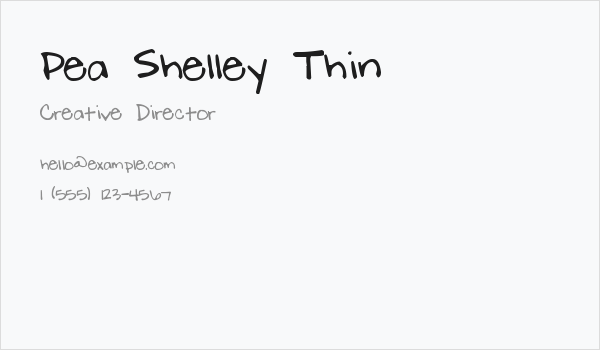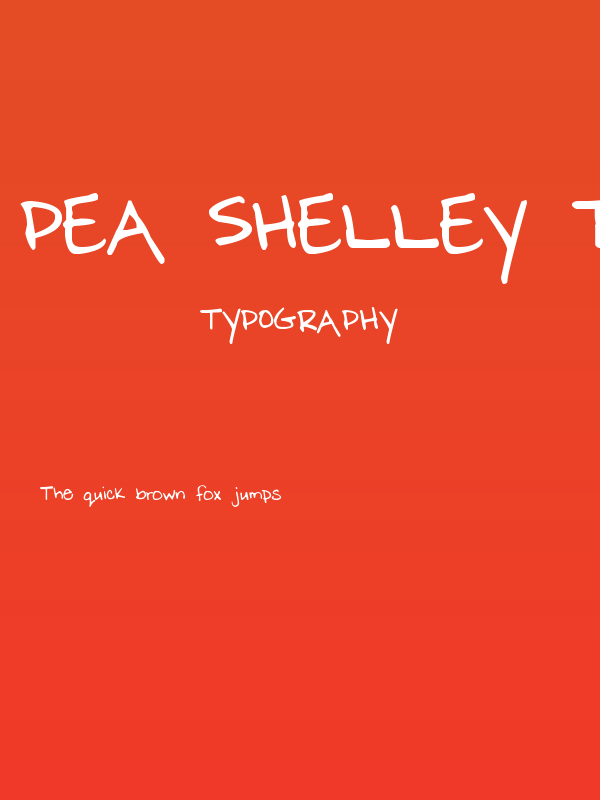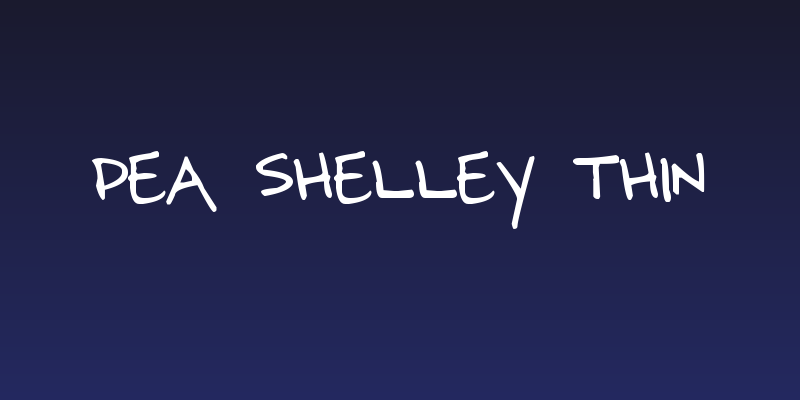
Pea Shelley Thin Font
Pea Shelley Thin Description
This font features a playful and casual handwritten style, characterized by its irregular strokes and informal appearance. The letters are slightly slanted, giving it a dynamic and lively feel. The uppercase and lowercase letters maintain a consistent style, with rounded edges and a smooth flow. The numbers and special characters complement the overall aesthetic, adding to its whimsical charm. This font is perfect for projects that require a personal touch or a friendly, approachable vibe.
| Use Case | Headlines, Informal text, Personal projects |
| Proposed Projects | Ideal for greeting cards, personal notes, children's books, and playful branding. |